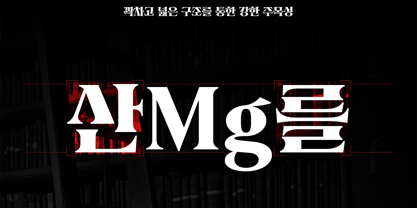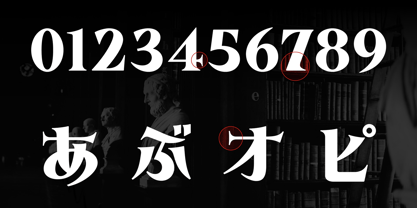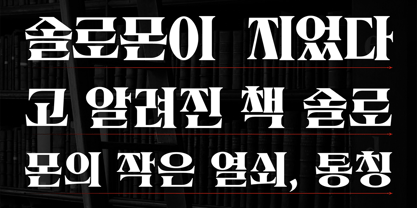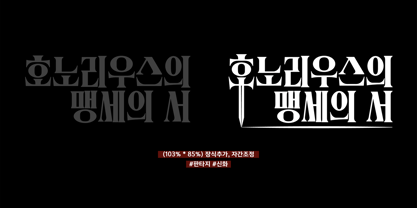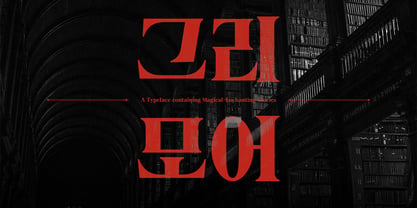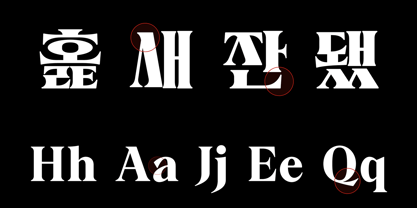
Yoon Grimoire
The Yoon Grimoire Font Family was designed by Yoon Design Team and published by Yoon Design. Yoon Grimoire contains 1 styles. More about this family
Yoon Grimoire is a dramatic display typeface with sharp serif details and strong stroke contrast. Named after dark spellbooks, it evokes a mysterious, gothic atmosphere perfect for charismatic antiheroes and fantasy creative works.